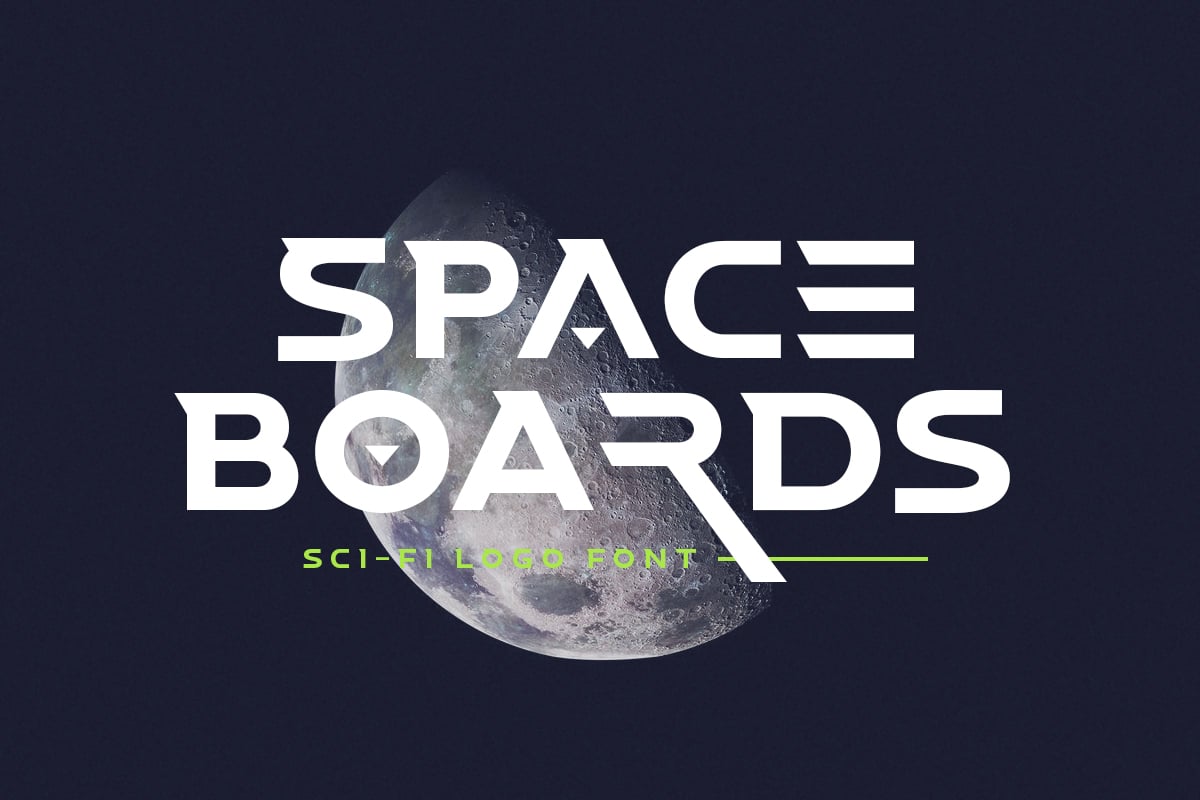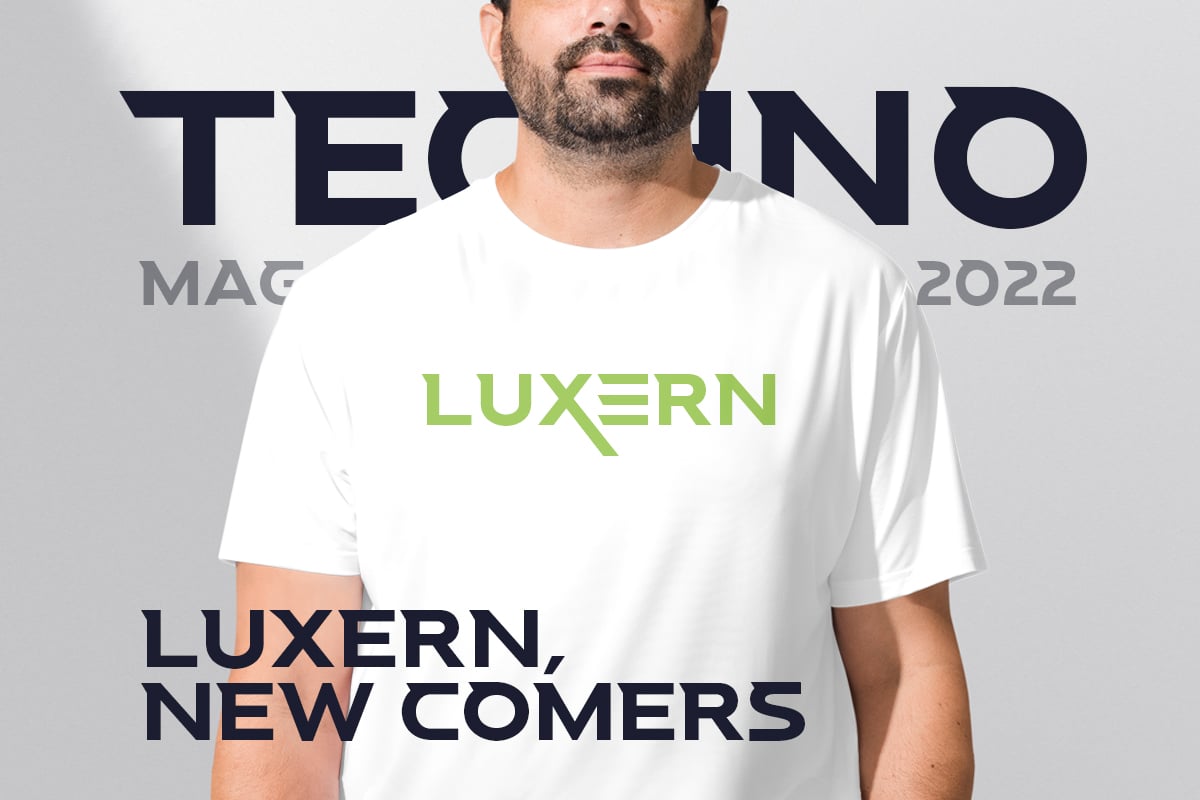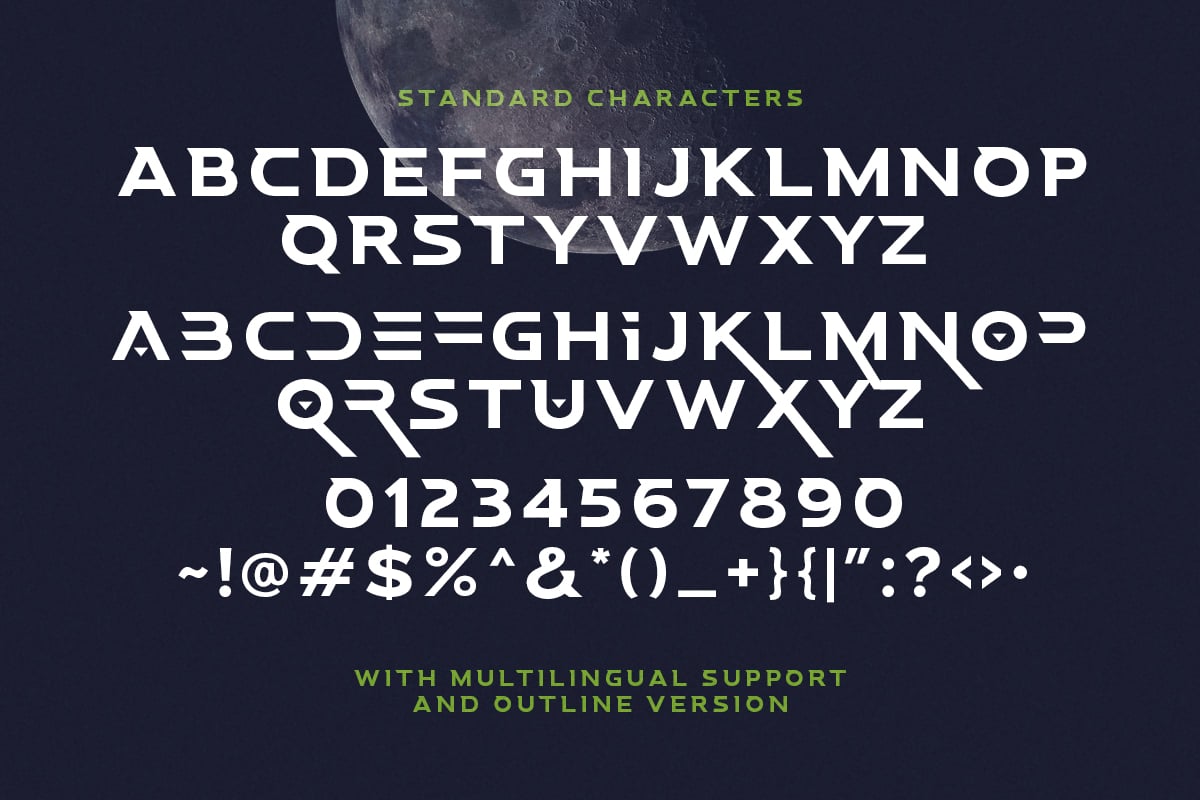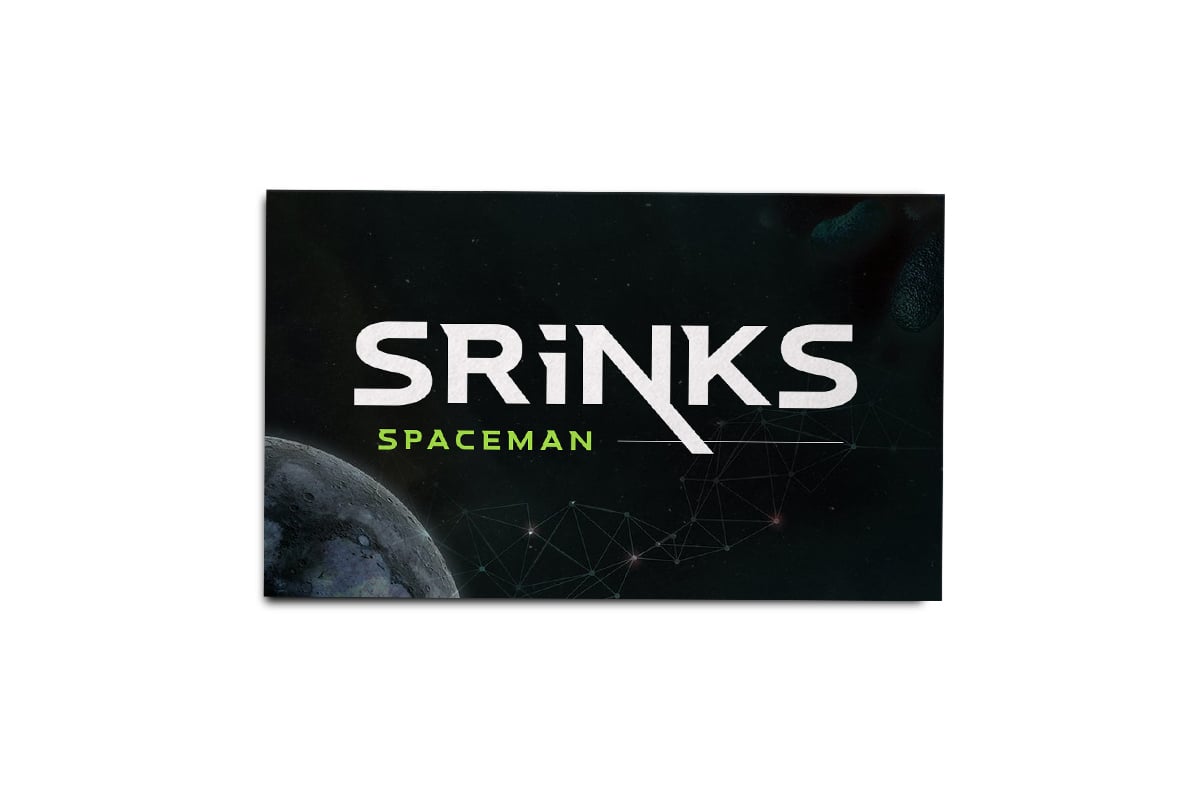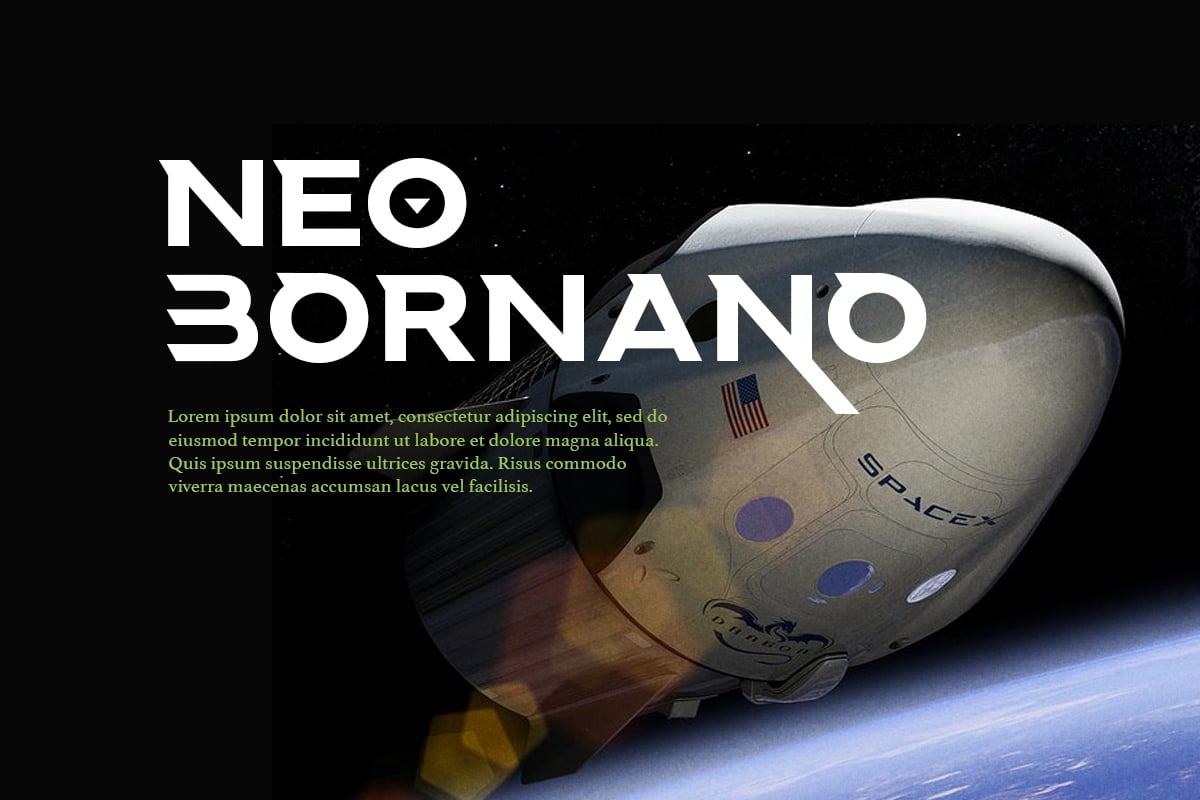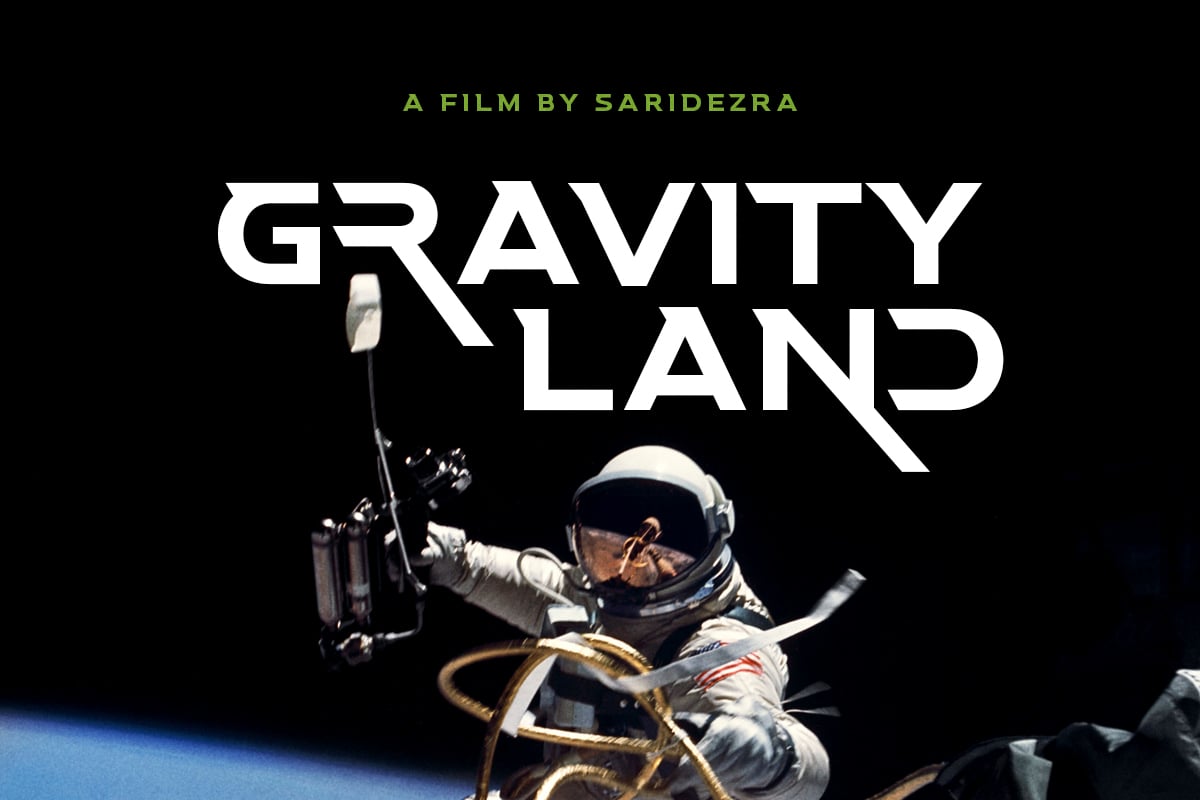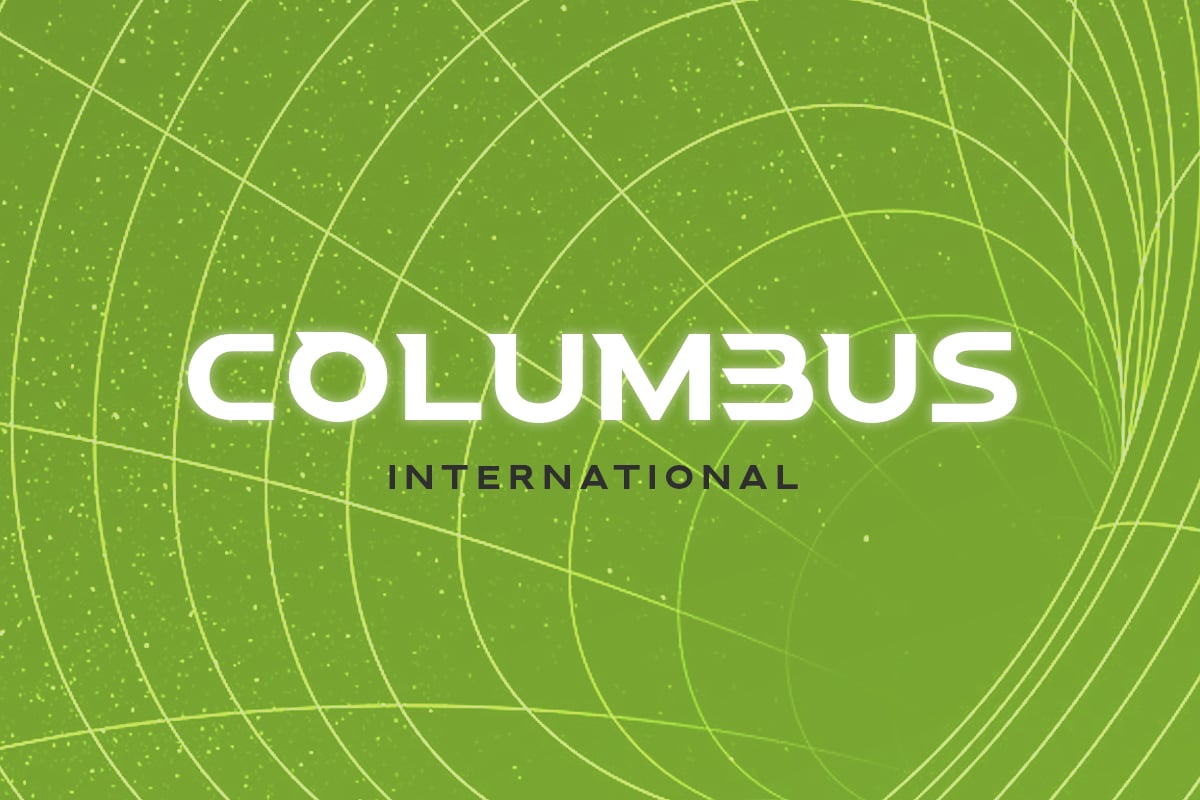
Space Boards – Sci-Fi Logo Font
Introducing, Space Boards, a sci-fi logo font!
Space Boards is a sans based font with unique lowercase & uppercase that will make your design looks futuristic and modern. You can use this font for any purpose, especially to make hi-tech logotype. This font is also suitable for science-fiction movie poster. You can mix and match the uppercase and lowercase to make your logo more unique and stand-out. This font also support multi language.